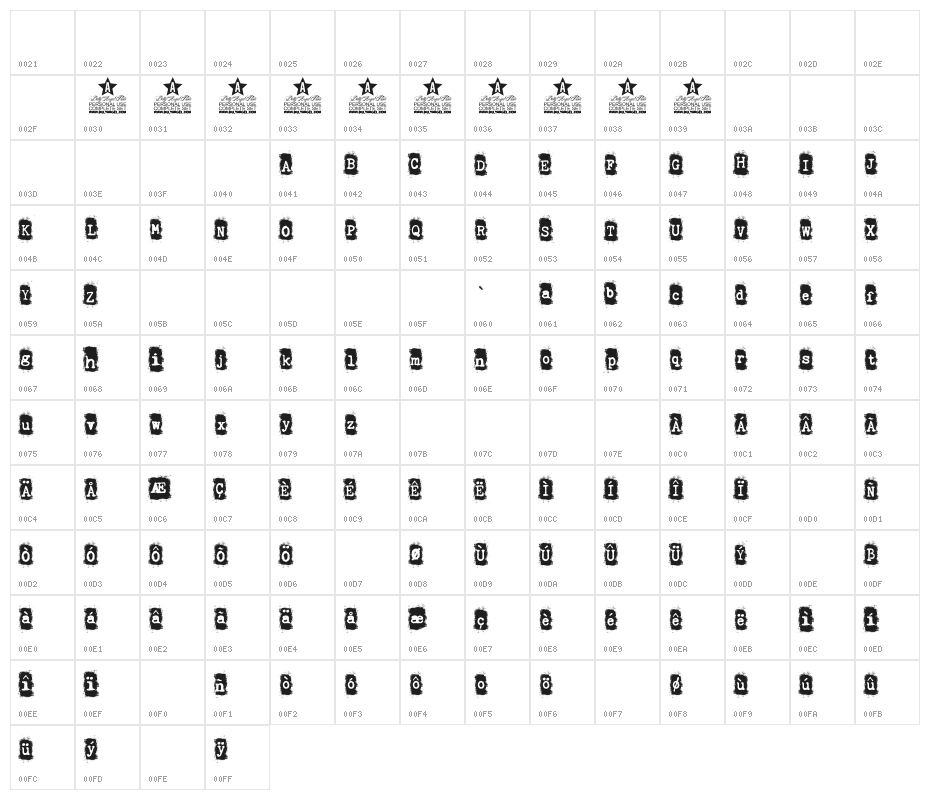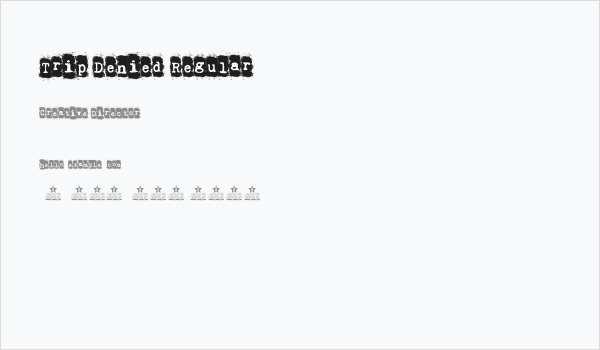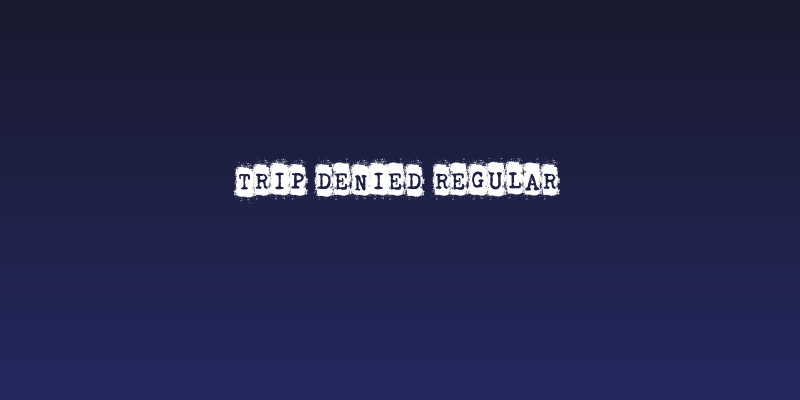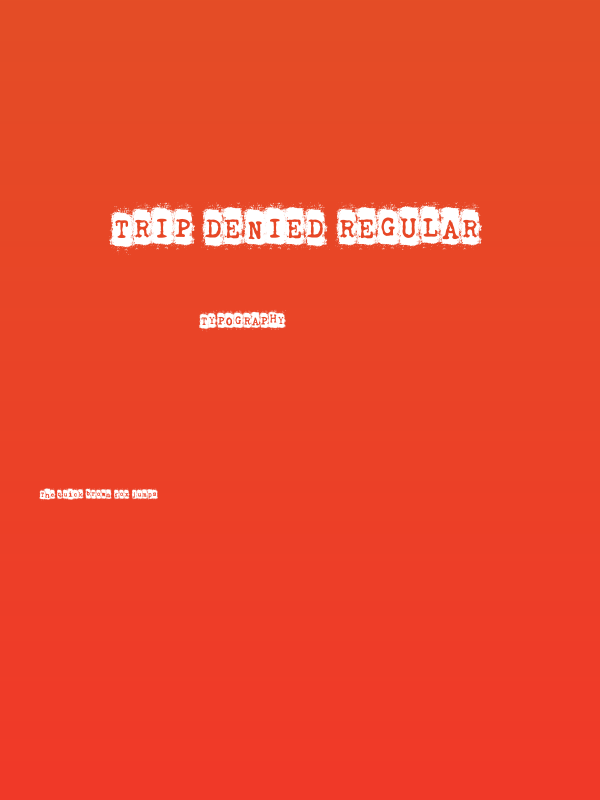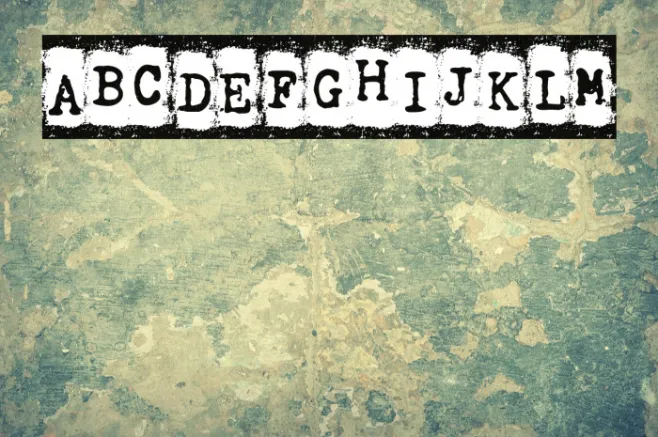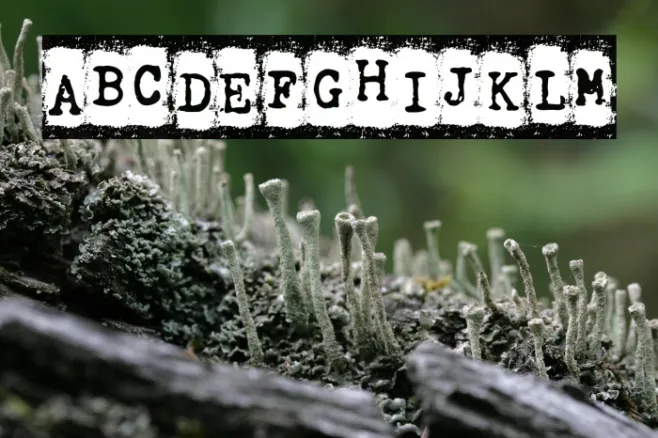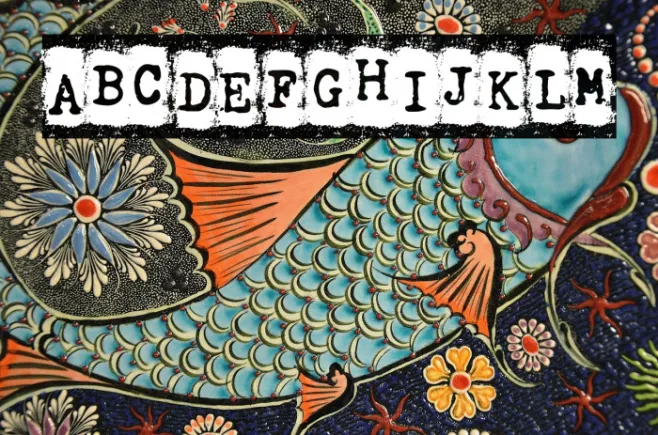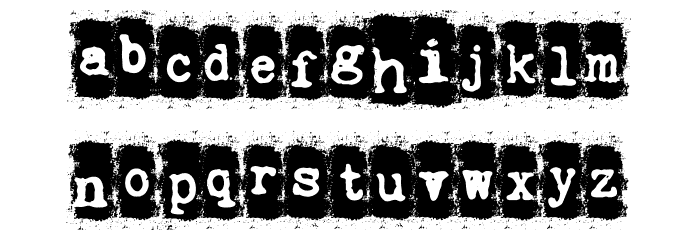
Trip Denied Regular Font
Trip Denied Regular Description
This font features a distressed, grunge style with a bold, impactful appearance. Each character is enclosed in a rough, textured square, giving it a unique, stamp-like quality. The letters are uppercase and lowercase, with a consistent, bold weight that makes them stand out. The font's rugged texture and irregular edges create a sense of movement and dynamism, making it ideal for projects that require a strong, rebellious aesthetic. The overall design is reminiscent of vintage typewriter fonts but with a modern twist, adding a layer of depth and character.
| Overall Style | Grunge, Vintage |
| Proposed Projects | Ideal for album covers, posters, branding for edgy or alternative products, and any design needing a bold, rebellious touch. |